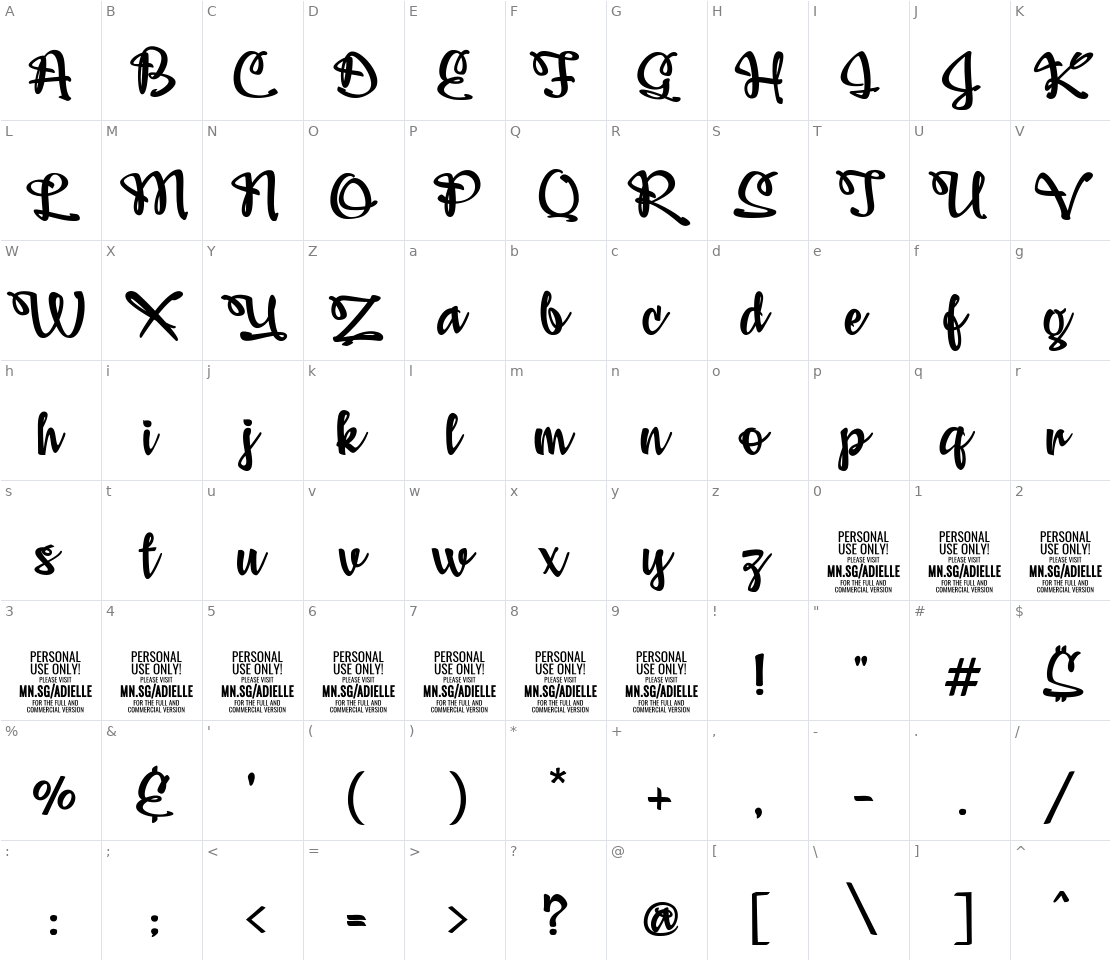
Adielle
Adielle is a bold brush script from Måns Grebäck with thick, confident strokes that feel genuinely hand-lettered rather than algorithmically smoothed. The casual energy and visible brush texture give it a warm, modern personality that works well for headlines, posters, and branding where you want something expressive but still legible. Grebäck is known for his prolific output of high-quality script faces, and this one sits comfortably in that tradition.